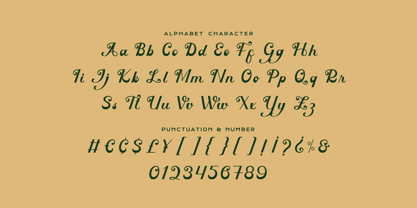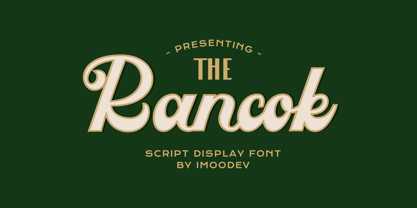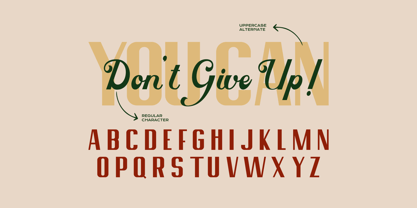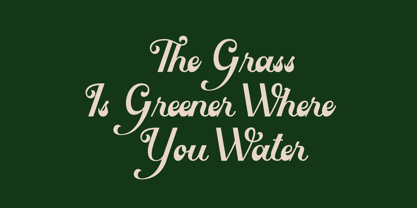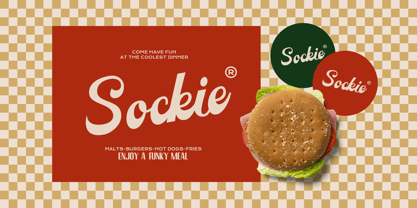
Rancok
by Imoodev
The Rancok Font Family was designed by Aulia Savira Putri and published by Imoodev. Rancok contains 1 styles. More about this family
Rancok is a retro script display font that exudes an old fashioned, nostalgic charm. Letters are smoothly connected with forward slant giving a hand painted sign writer feel. It's a decorative script gracefully curved serifs and distinctive flourishes on the capital letters.
Rancok got a touch of whimsy and drama that makes this font feel like a classic quote you’d see on a hand painted café menu or a 1950s billboard. Perfect for vintage diners, retro branding, fashion labels, boutique logos, menus, packaging, badges, posters, storefront signage and fun promotional materials.